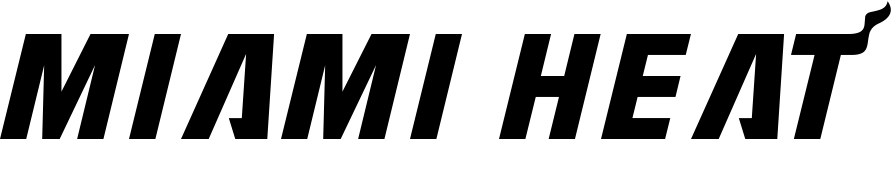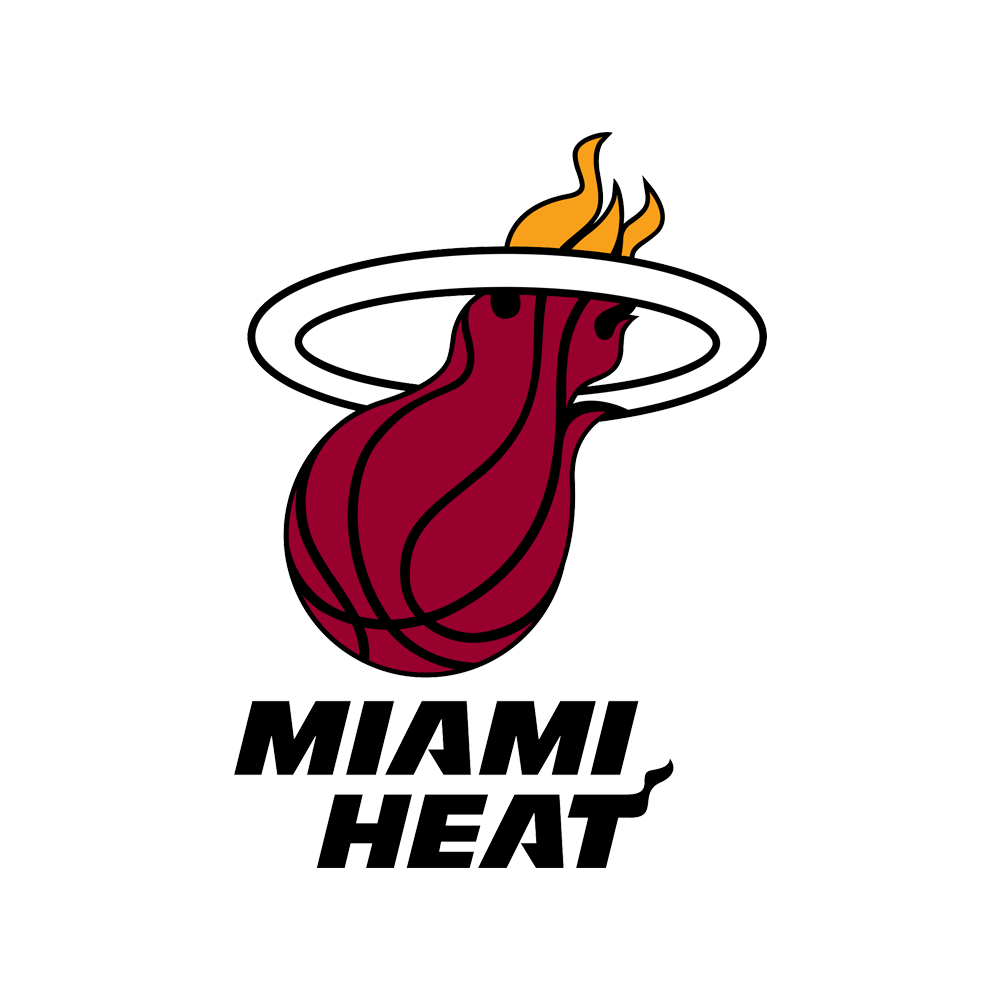
Miami Heat Font
LogoThe Miami Heat is a professional basketball team based in Miami, Florida, competing in the National Basketball Association (NBA) as a member of the league's Eastern Conference Southeast Division. Established in 1988, the team has achieved success over the years, winning multiple championships and featuring star players such as Dwyane Wade, LeBron James, and Chris Bosh.
The Miami Heat font was custom made but has been replicated as NBA Heat South Beach created by The Sports Fonts.